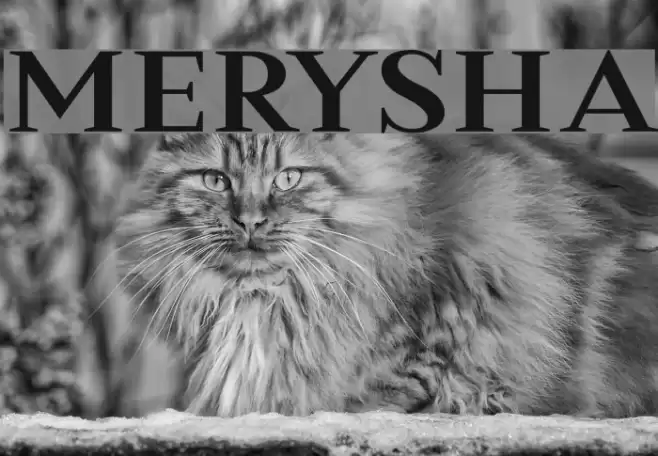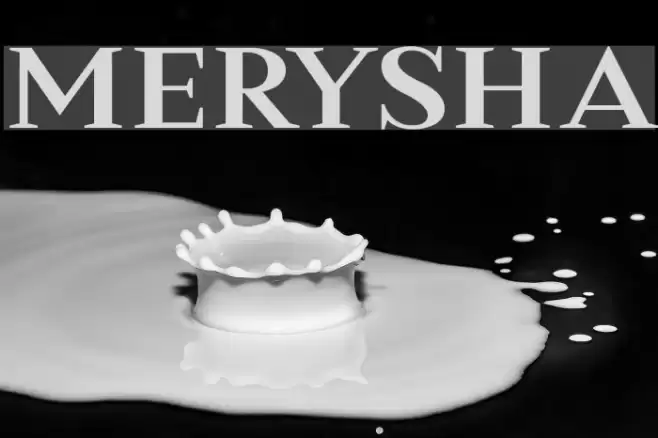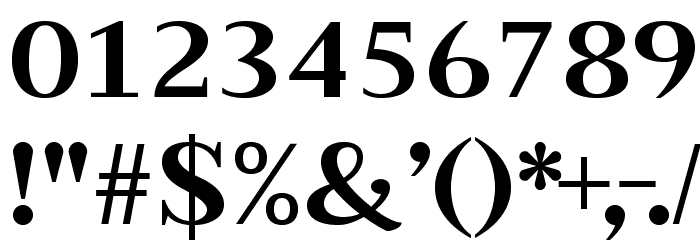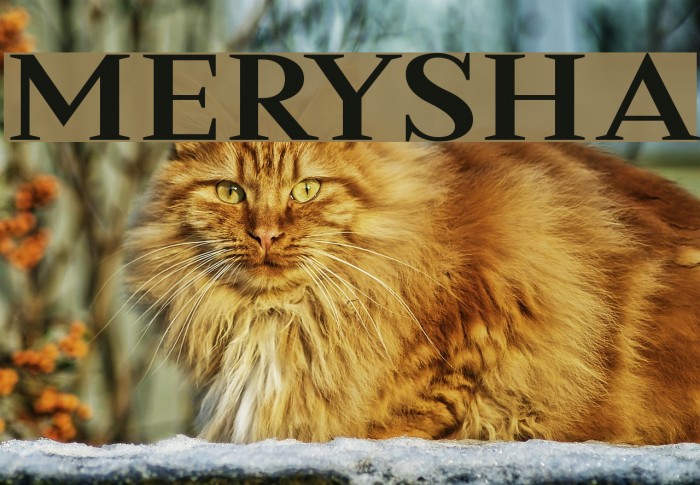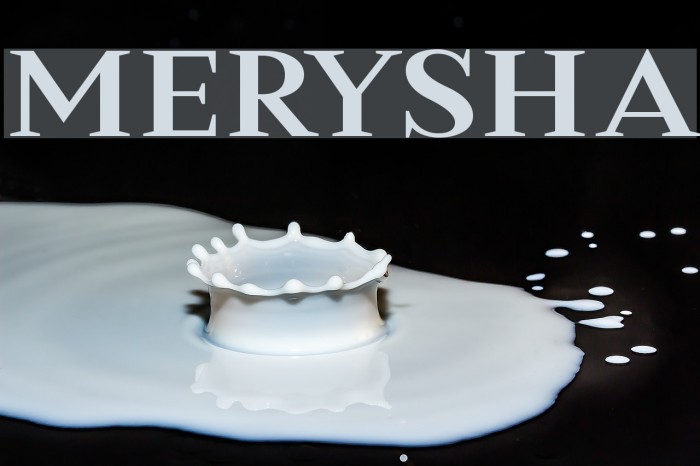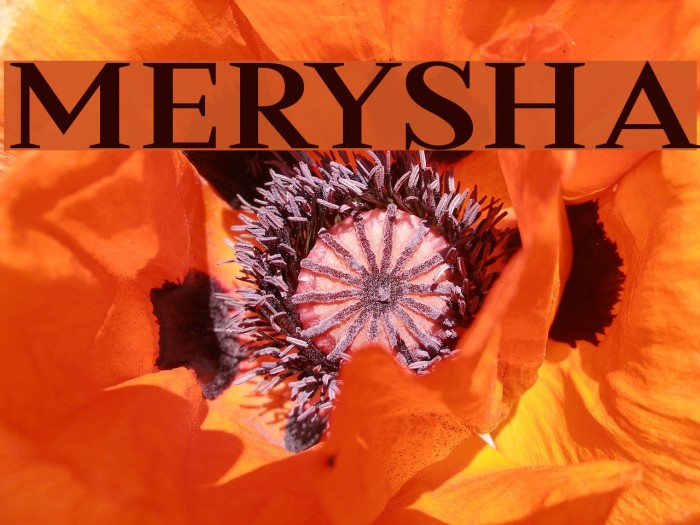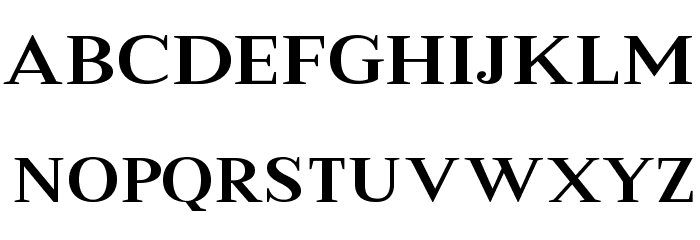
Merysha Font
Merysha Description
This font features a classic serif style with elegant and sharp serifs that give it a sophisticated and timeless appearance. The uppercase letters are bold and commanding, while the lowercase letters maintain a balanced and harmonious look. The numerals are clear and distinct, making them easily readable. Special characters are designed with the same attention to detail, ensuring consistency across all glyphs. The overall design is suitable for formal and professional settings, providing a sense of authority and tradition.
A classic serif font with elegant, sharp serifs and a sophisticated appearance from Uncategorized fonts.
- Proposed Projects: Ideal for use in editorial design, book covers, formal invitations, and branding for luxury products.
- Overall Style: Classic